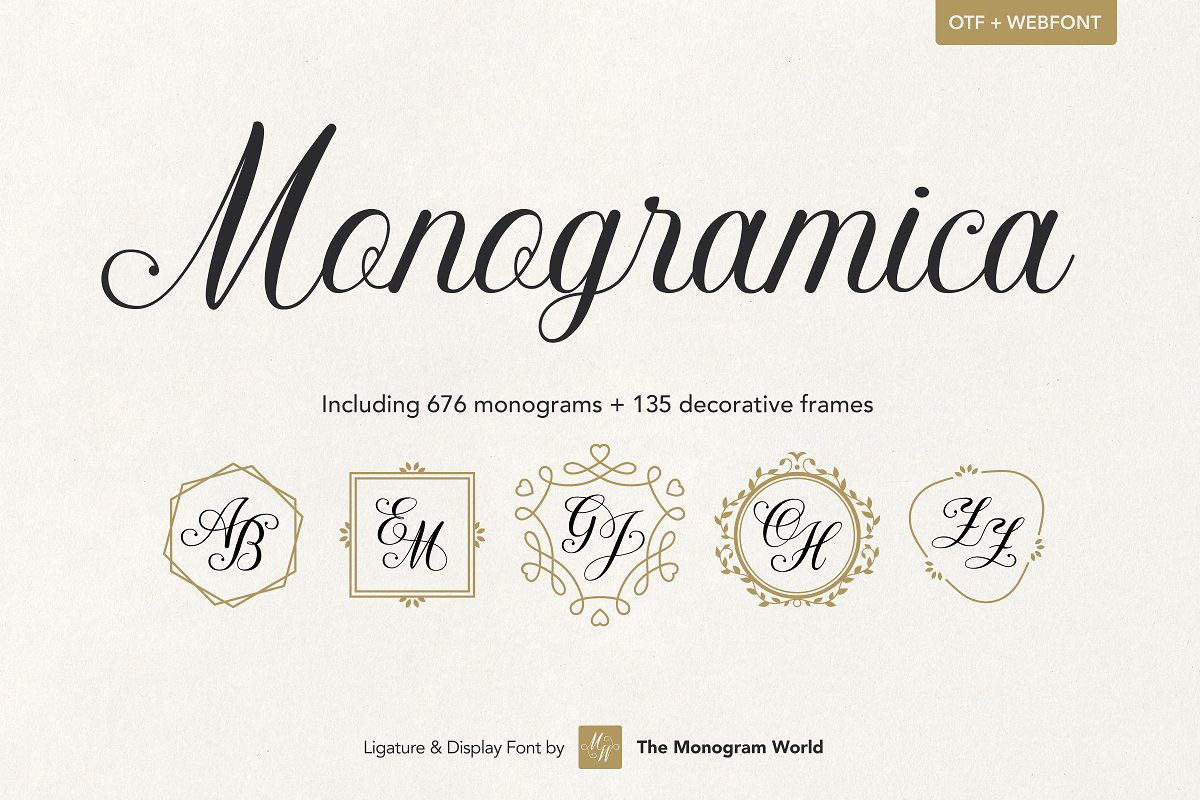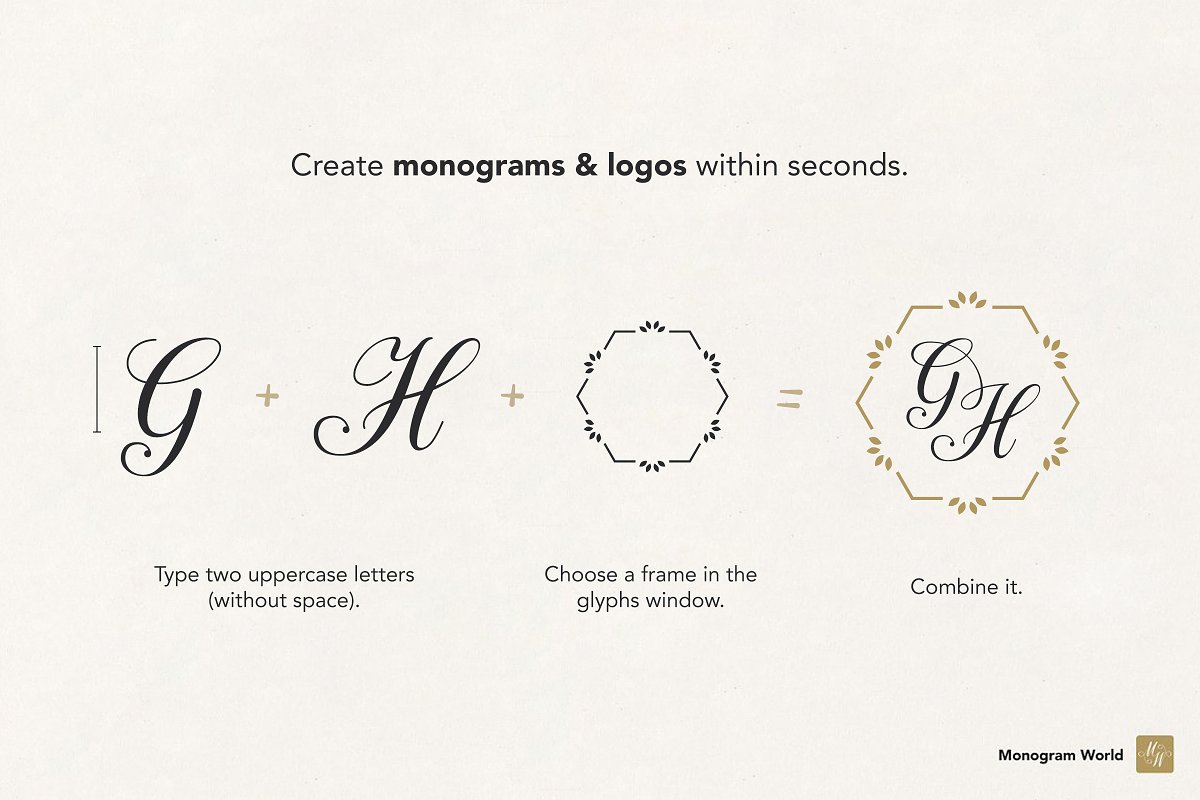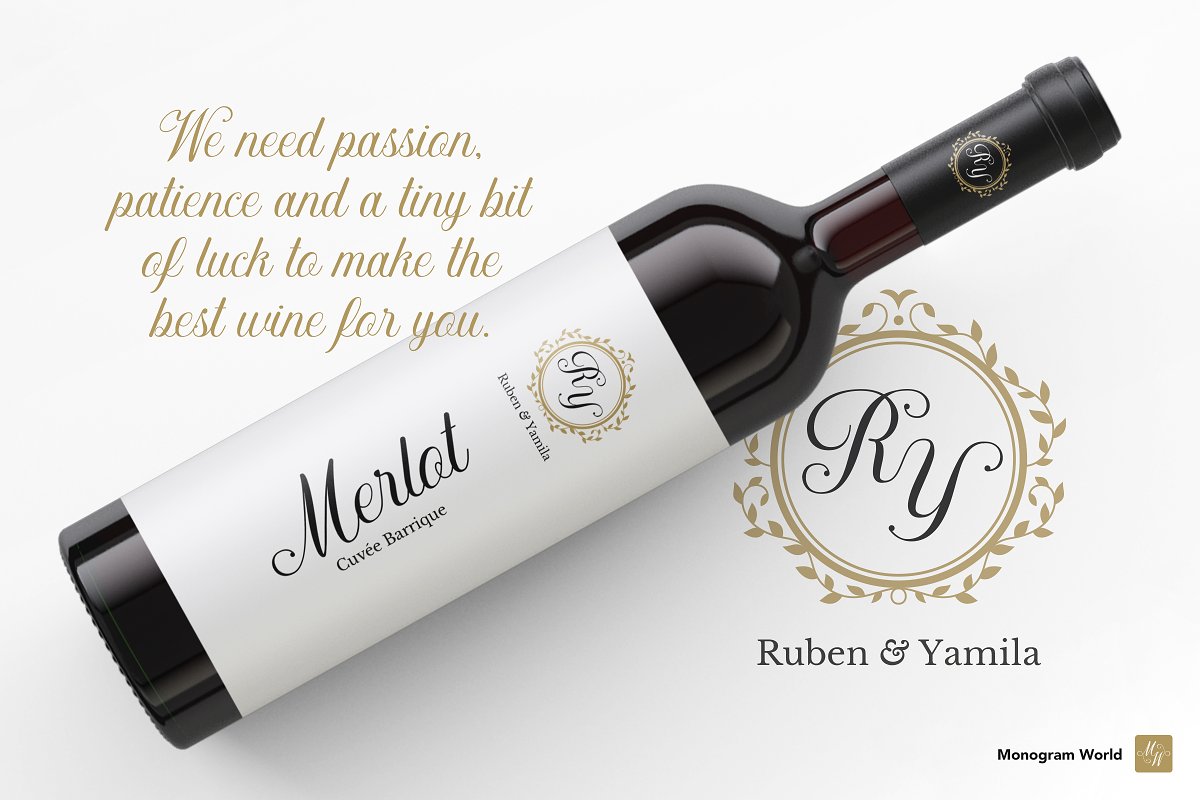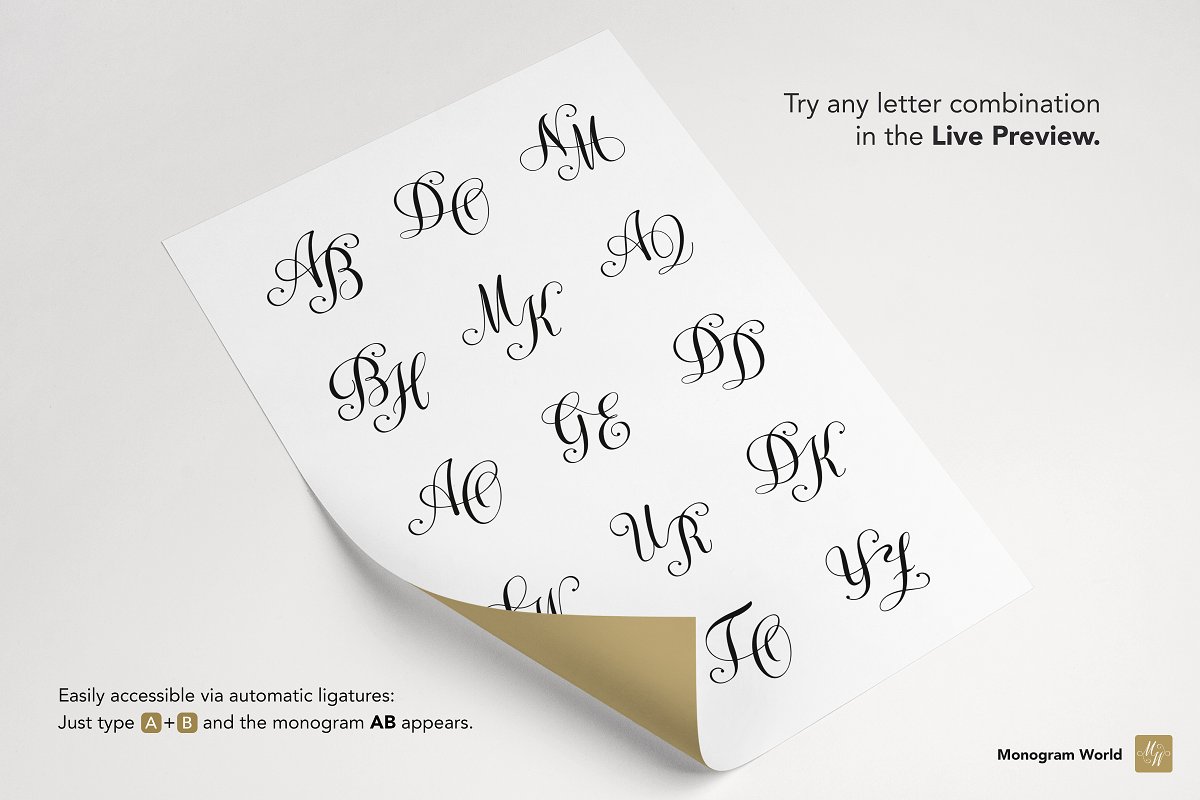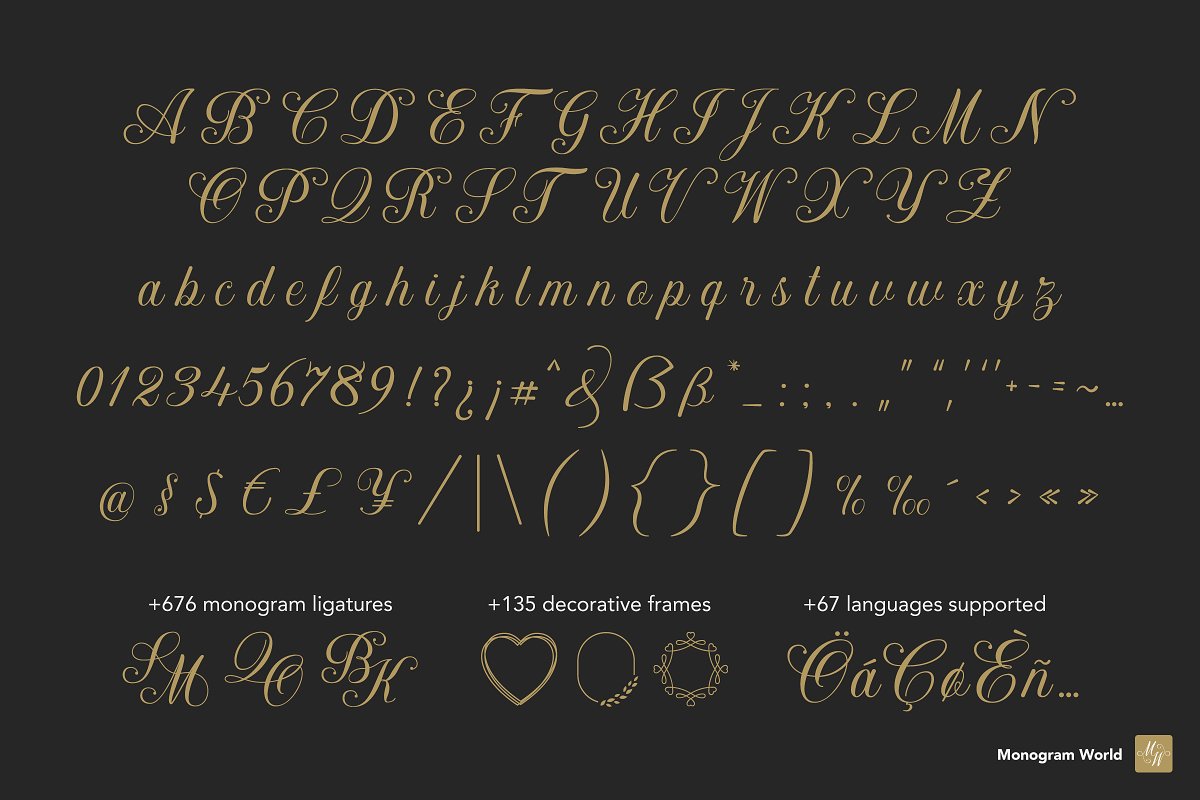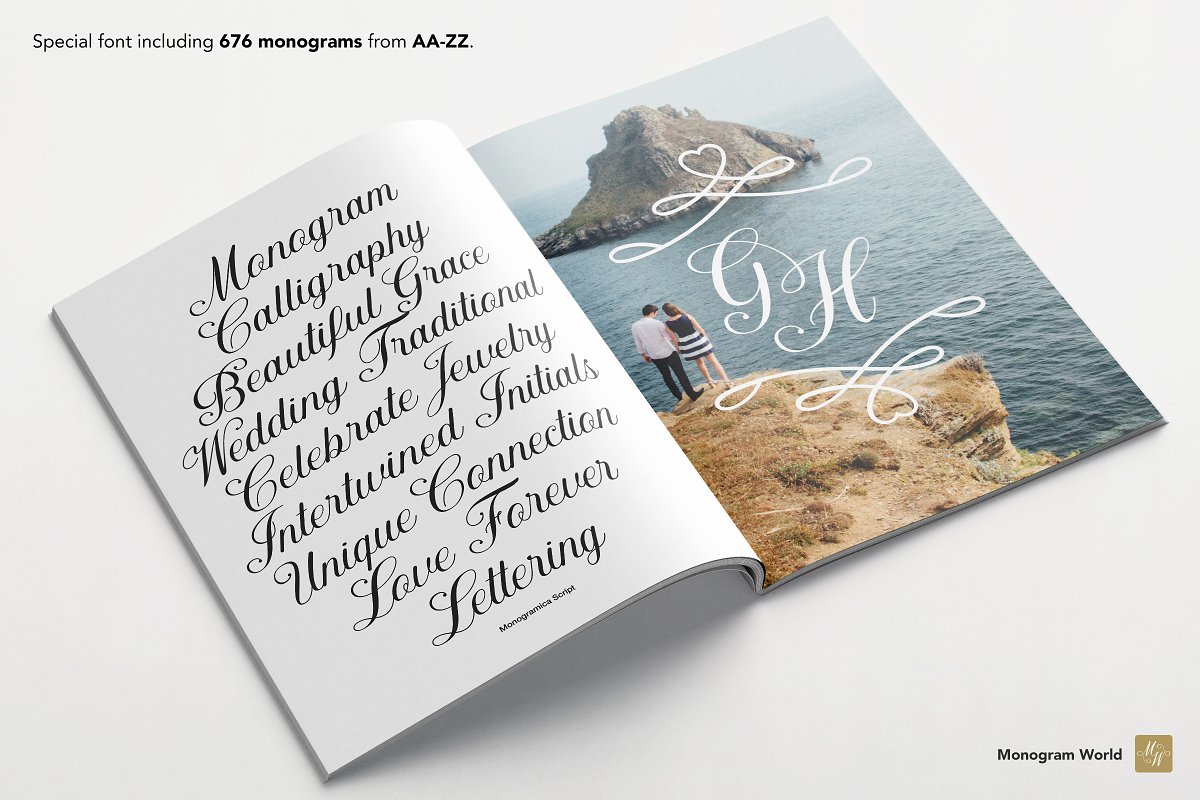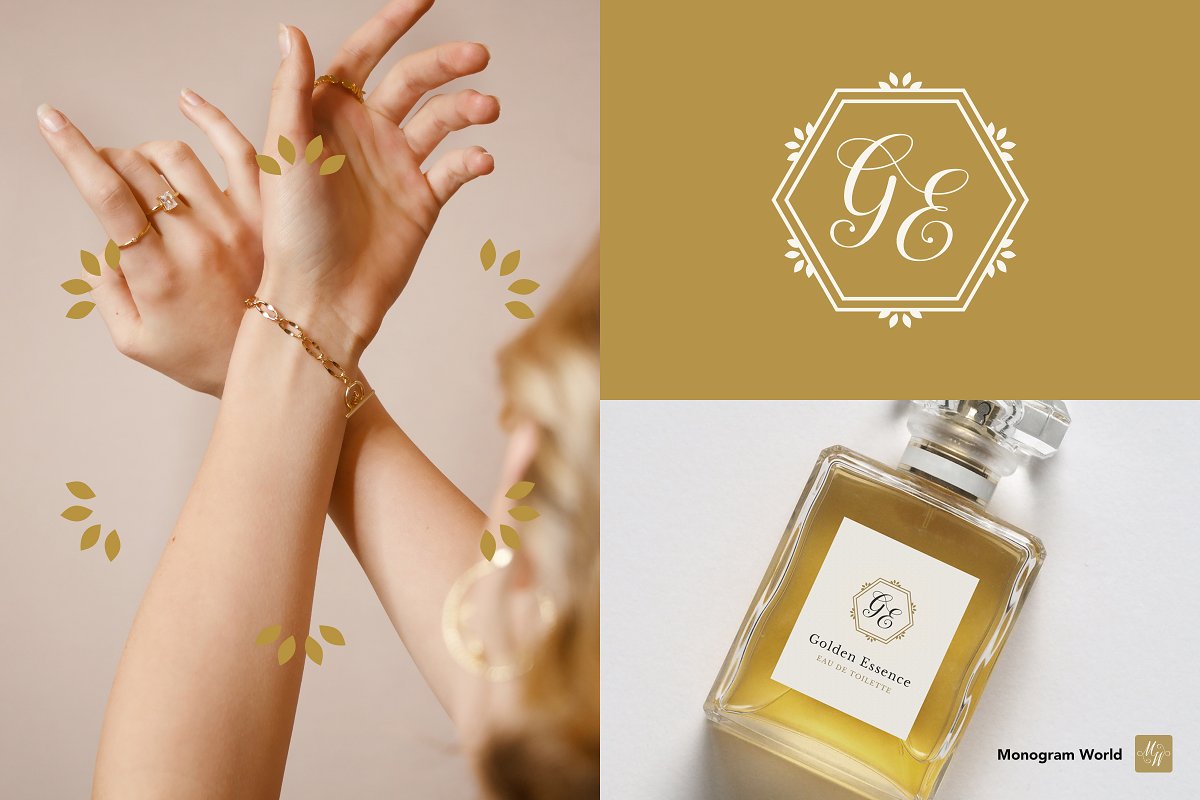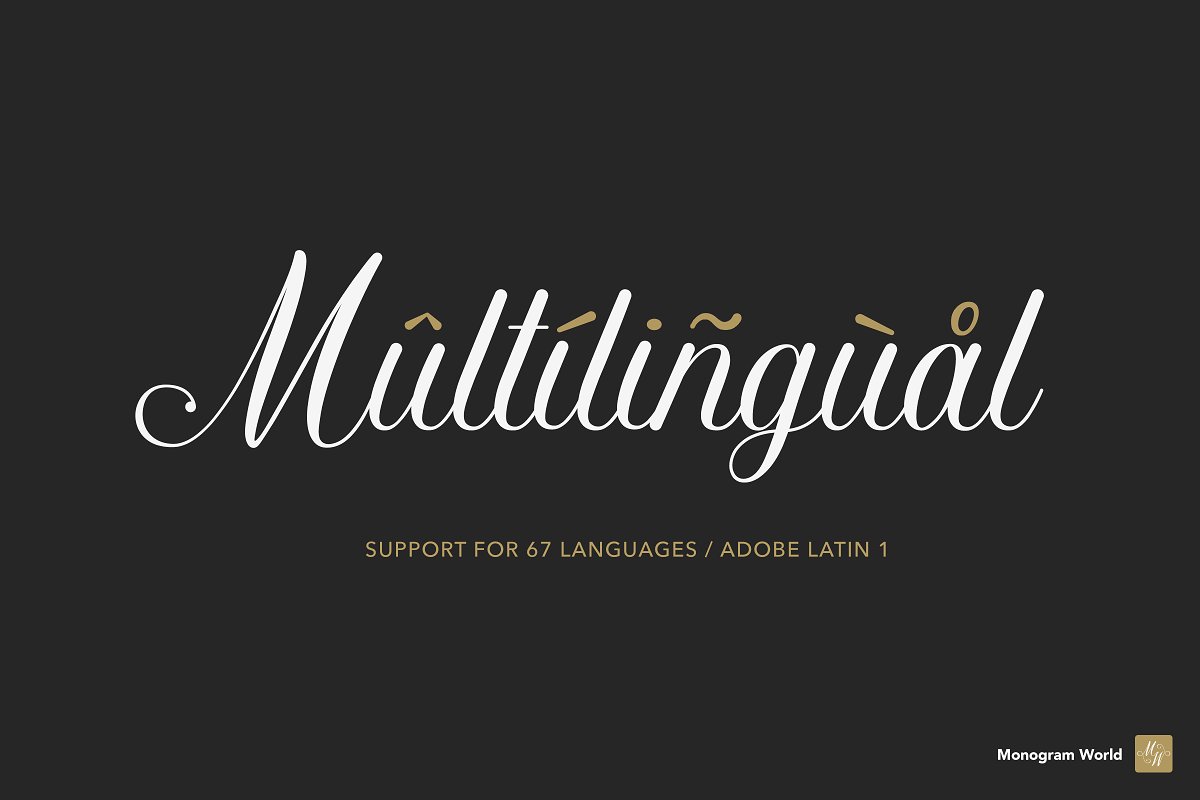
About the Monogramica Unique Monogram Font
The first real monogram font!Monogramica Script is an elegant calligraphy typeface that includes 676 premade uppercase monograms which are easily accessible through automatic ligatures, Just type A + B and the monogram AB appears, The font contains all two-letter combinations from AA to ZZ as real interlaced lettering artworks + 135 decorative frames
It’s like a versatile logo creator kit for any sophisticated or luxury business like e, g, fashion, jewelry, art ateliers, handicraft studios, wine & spirits, hotels & resorts or fine restaurants & bars, It can be used for a whole branding identity, product packaging or just for single applications like embroidery, engraving or any other printed item
The style of Monogramica is based on classic calligraphy type, and yet a bit softer & more modern because of its rounded line tops, The font has got lowercase & uppercase letters, numbers, punctuation and many special characters to cover the major western languages
FEATURES676 monograms from AA-ZZ (= all 2-letter combinations of the latin alphabet)Easy access via automatic ligatures: type A + B and the monogram AB appears135 decorative frames – accessible in the glyphs window (e, g, in Photoshop, Illustrator)Create logos & wordmarks within seconds676 monograms + 135 frames = 91,260 possible logo variationsElegant display typefaceIdeal for use in large text like headlines & postersAlso suitable for short body copy, e